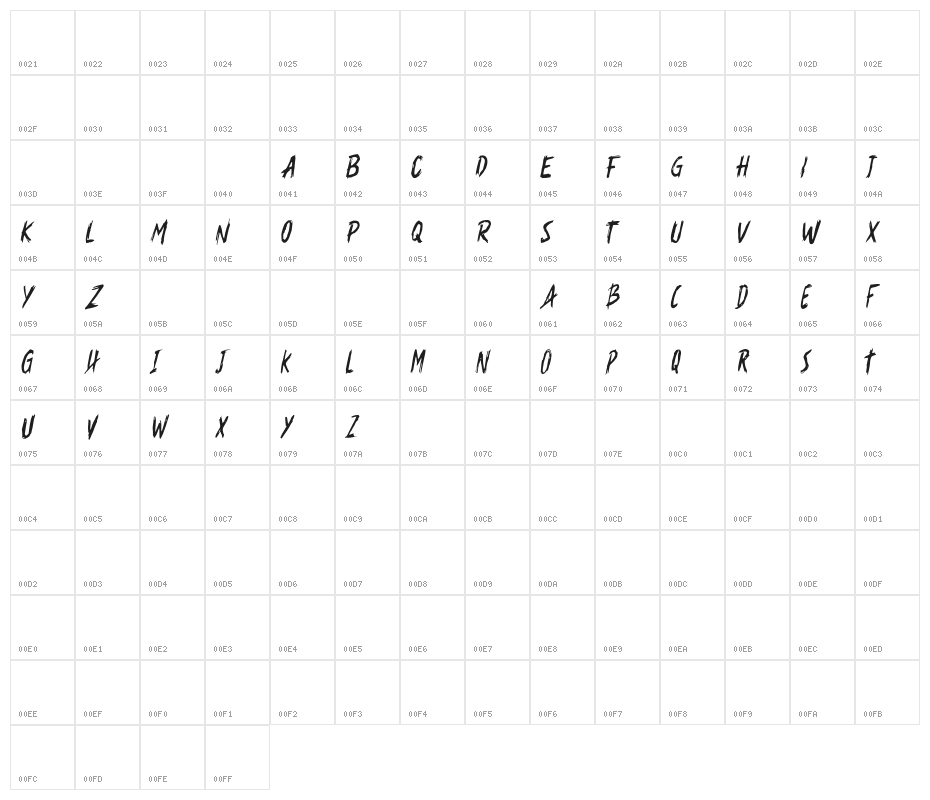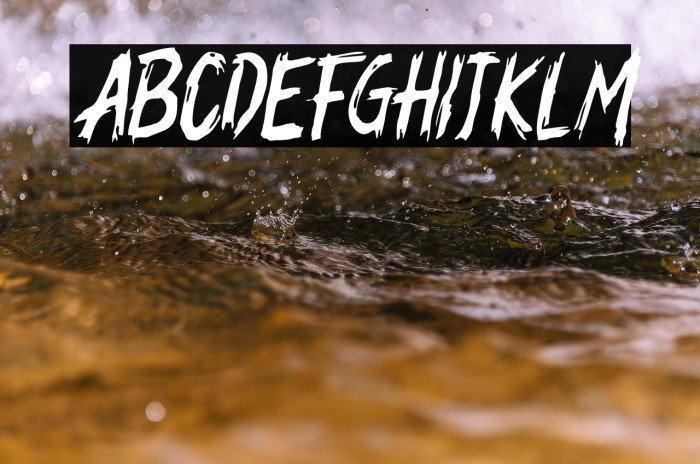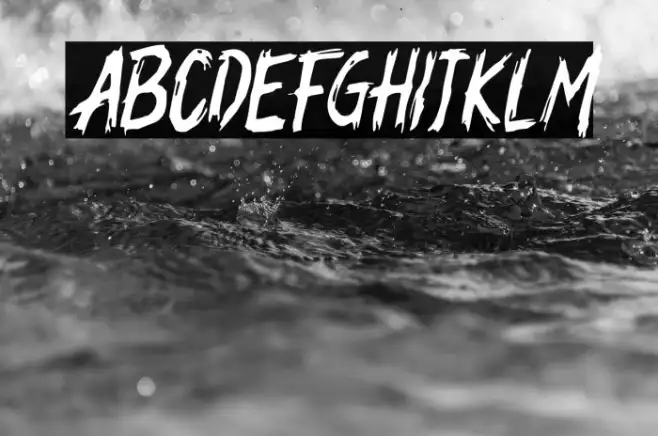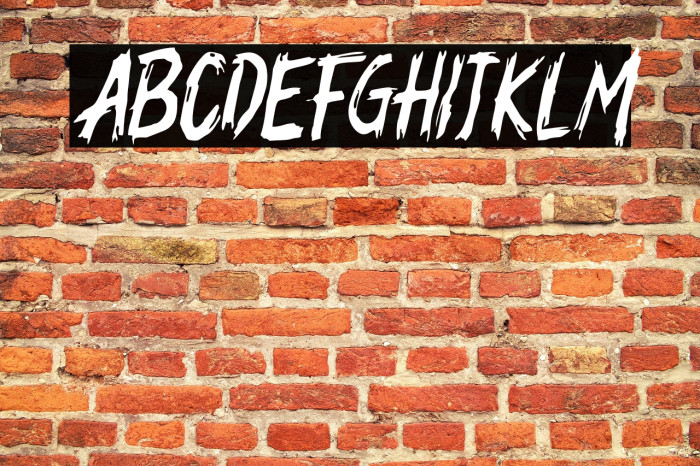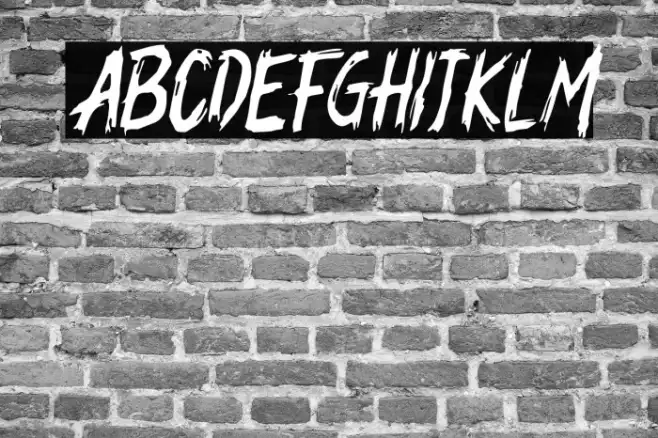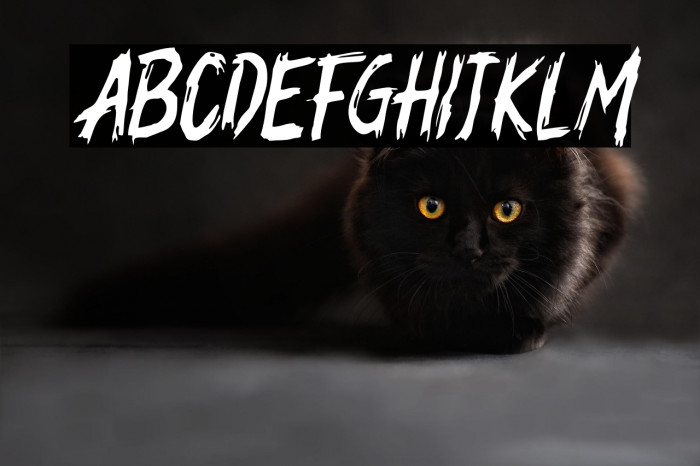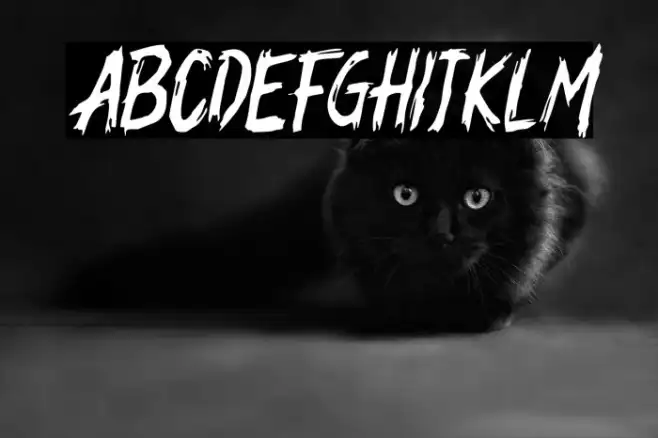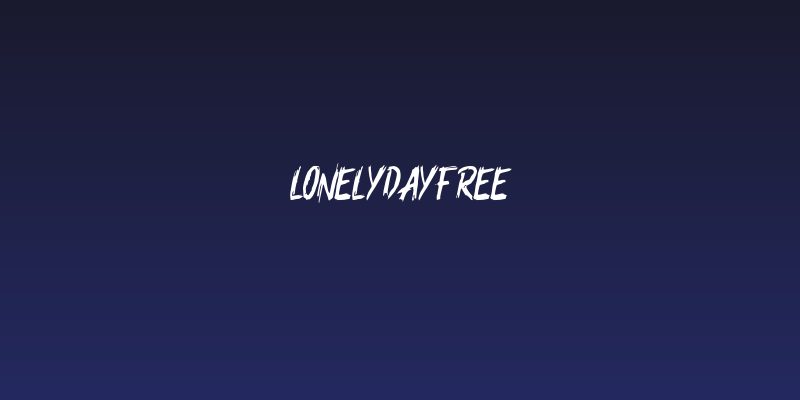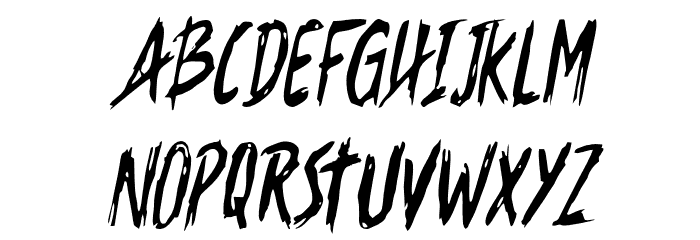
LonelydayFREE Font
LonelydayFREE Description
This font features a bold and dynamic brush style, characterized by its sharp, jagged edges and energetic strokes. The letters are slightly slanted, giving a sense of motion and urgency. The uppercase and lowercase letters maintain a consistent style, with a rough, hand-drawn appearance that adds a raw and edgy feel. The font's unique texture and irregularities make it stand out, ideal for projects that require a strong visual impact.
| Proposed Projects | Perfect for music album covers, movie posters, skateboarding brands, and edgy fashion labels. |